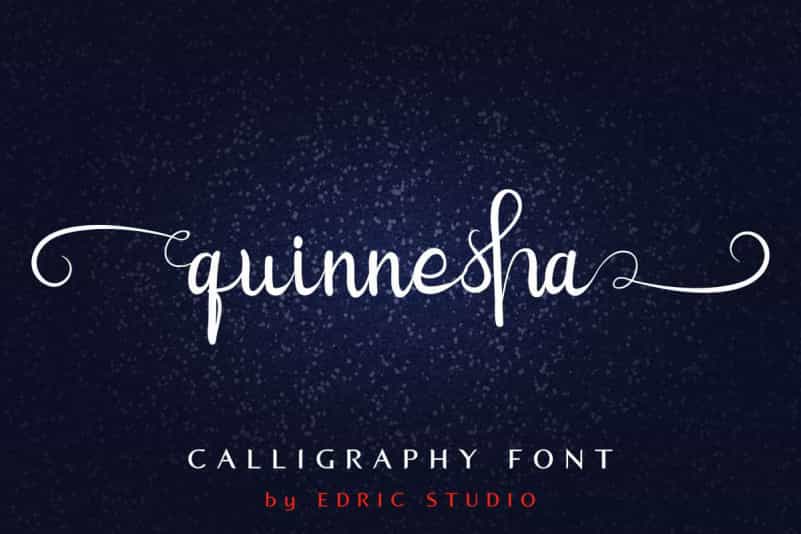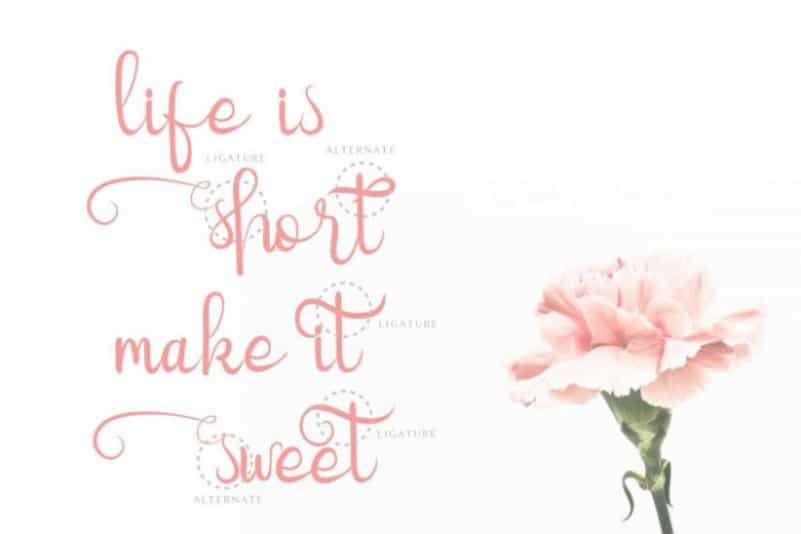
Discover Quinnesha Script Font, part of the Calligraphy collection—a versatile and unique font perfect for adding a personal touch to your projects. Download it for free and enjoy crafting designs with style, from invitations to social media posts. This font is available exclusively for personal use, giving you the freedom to create without limits. Unlock your creativity with Quinnesha Script Font today!
Quinnesha Script Font has a lot of alternate glyphs so you can discover even more. This font will suits many projects categories : Logo type, flyer, stationery, business card, signage and so on. With this font you can create anything as your creativity is the limit no matter what it may be.